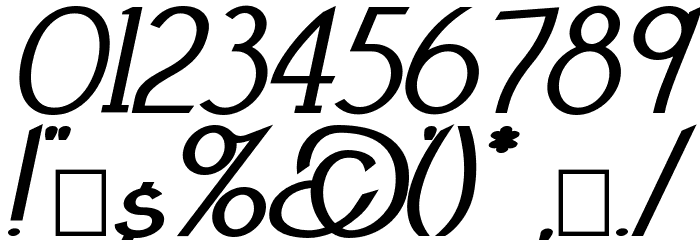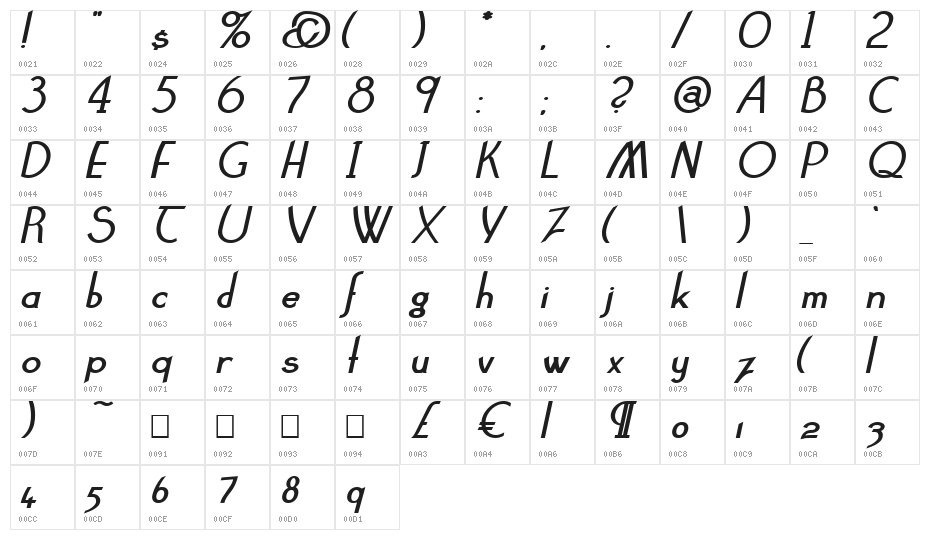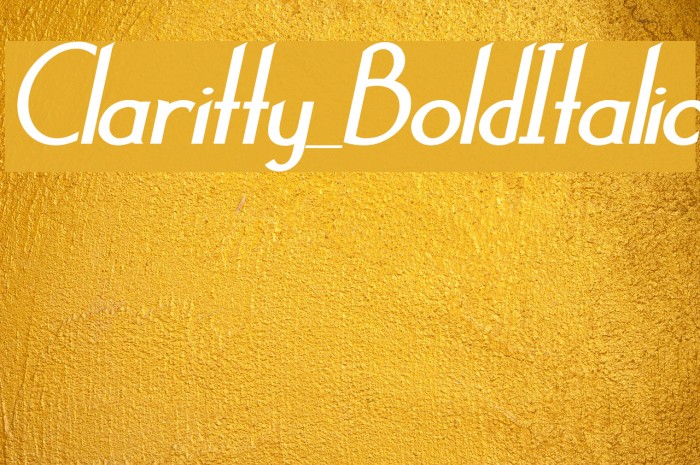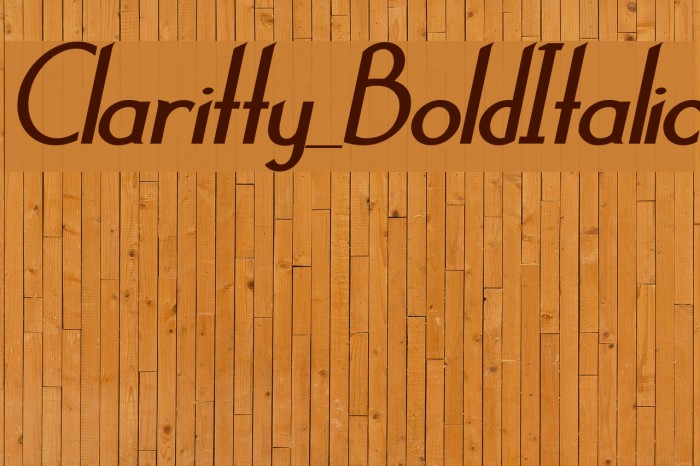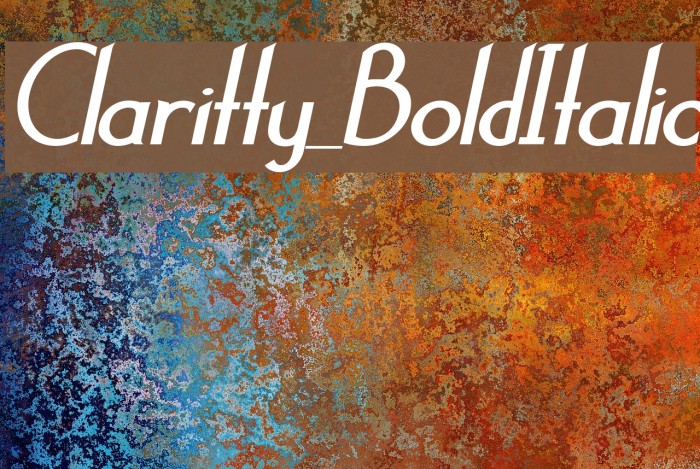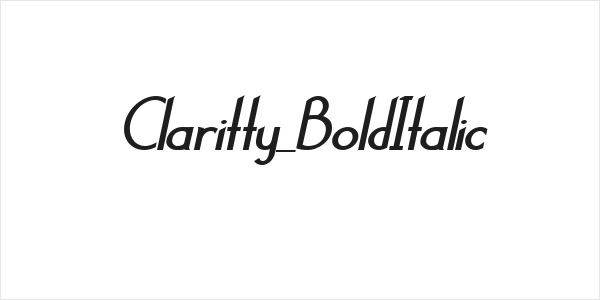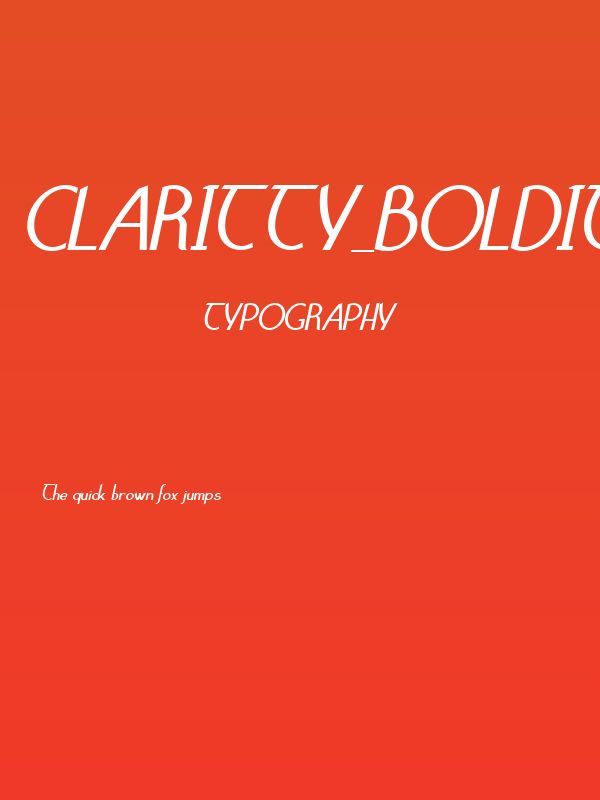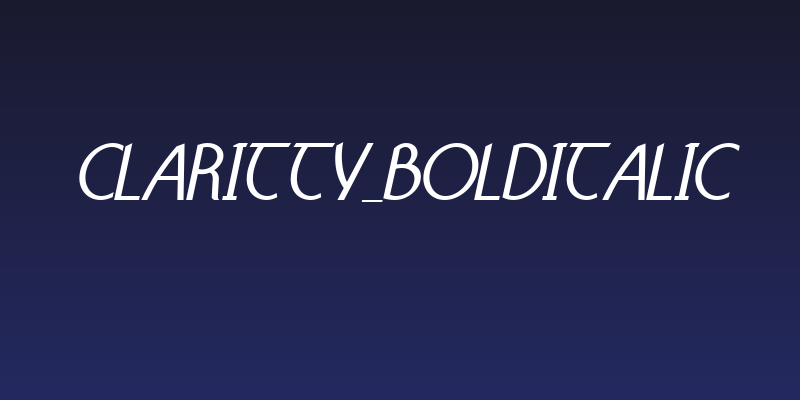
Claritty_BoldItalic Font
Claritty_BoldItalic Description
This font features a dynamic and modern style with a bold and italicized appearance. The uppercase letters are tall and slightly condensed, giving a sleek and sophisticated look. The lowercase letters maintain a consistent flow, with some characters like 'g' and 'f' having unique, elongated tails that add a touch of elegance. The numerals are well-proportioned, ensuring readability while maintaining the font's overall aesthetic. Special characters are designed with flair, particularly the ampersand and percentage symbols, which stand out with their artistic curves. This font is ideal for projects that require a contemporary and stylish touch.